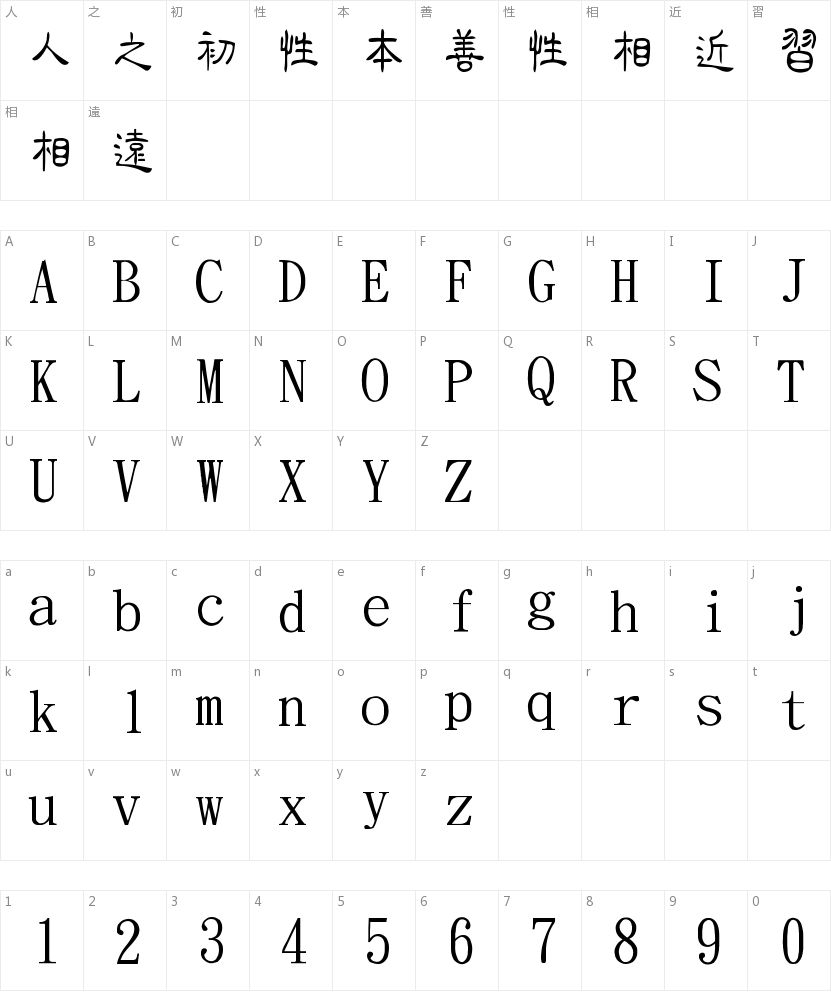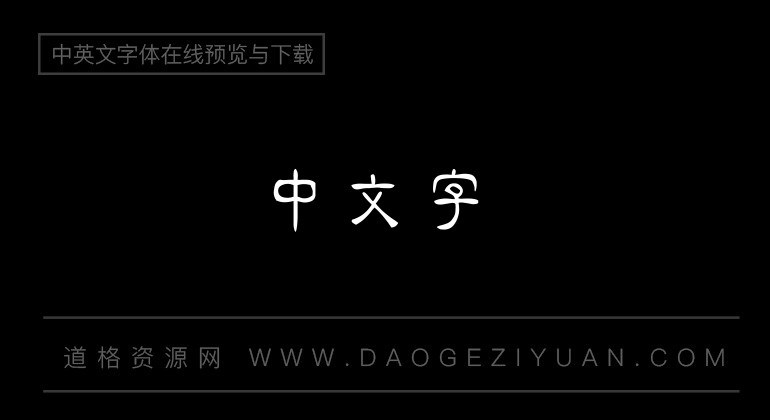
? Jinmei Rough Primitive International Code is a font developed by American computer company Adobe, which has high readability and editability. Jinmei Rough Primitive International Code font adopts the simple format of English characters, and users can easily create amazing text effects. In addition, Jinmei Rough Primitive International Code font also has high scalability and can be clearly displayed at different resolutions to meet different application requirements.Content introduction
Golden Plum Primium International Code is a very good handwriting art font, with a good visual sense, suitable for cultural propaganda design, commercial brand advertising and product packaging design and personalized text typesetting and other more scenes.